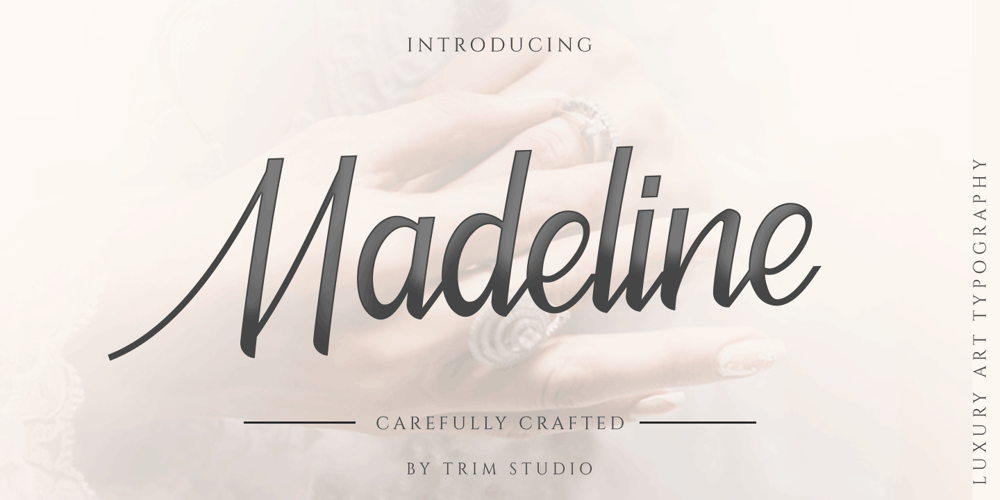
Madeline
Madeline font
Madeline Font Family was designed by Deri Kurnia and published by Trim Studio. Madeline contains 1 styles and family package options. Madeline is a beautiful Handwritten Typeface, which is carefully designed to meet the beauty of feel and touch of the craft.